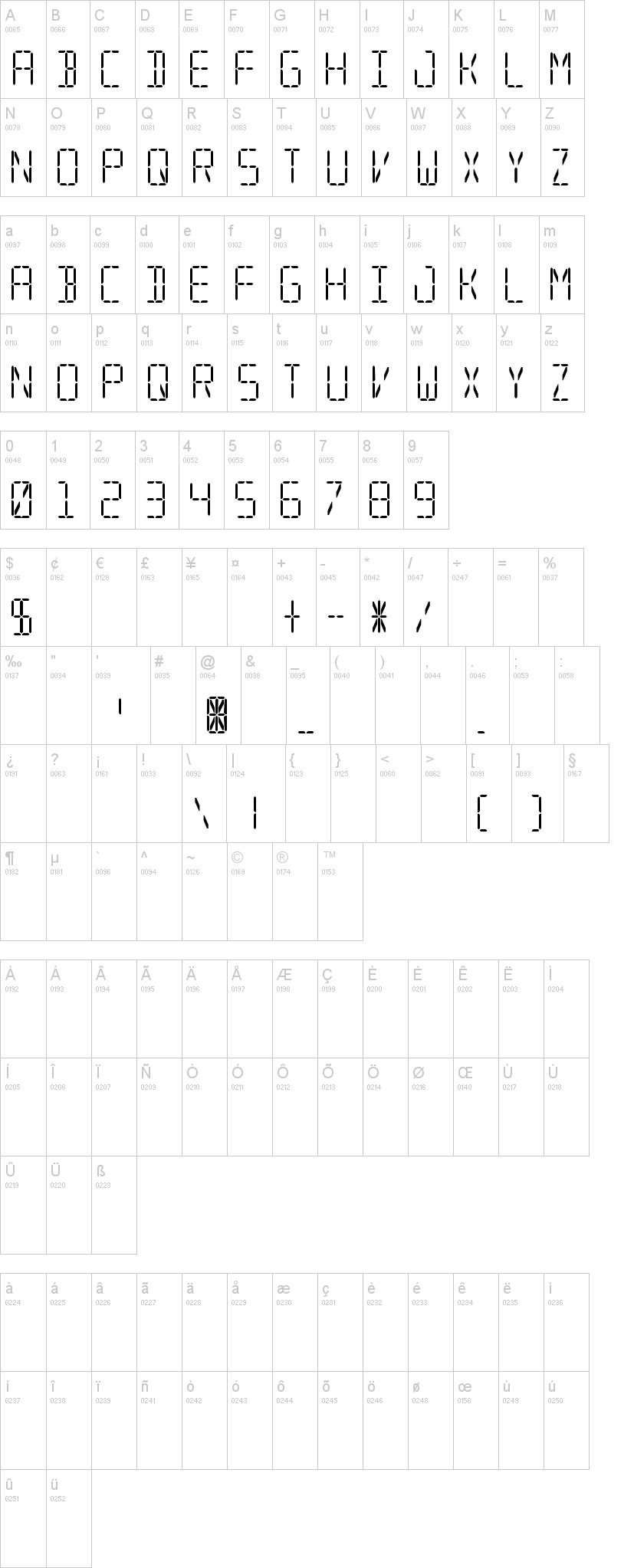
Шрифт Segmental
Segmental is an 16 segment display font from Superposition Kitty and is free for personal use. If you wish to know more about Superposition Kitty or our work then please visit http://superpositionkitty.com/